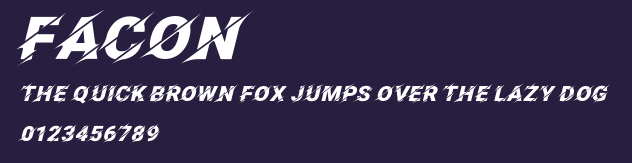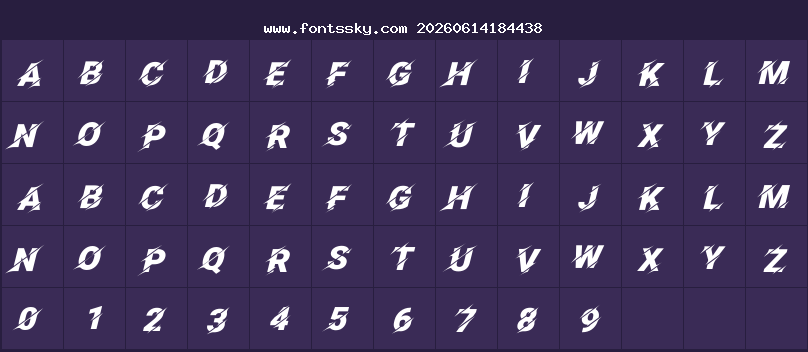
• Font Name: Facon
• Full Font Name: Facon
• PostScript Name: Facon
• Designer: Google
About Facon.ttf
Facon.ttf is a modern, elegant sans-serif font designed for ultimate readability and visual harmony. Perfect for branding, headlines, web design, and print materials.